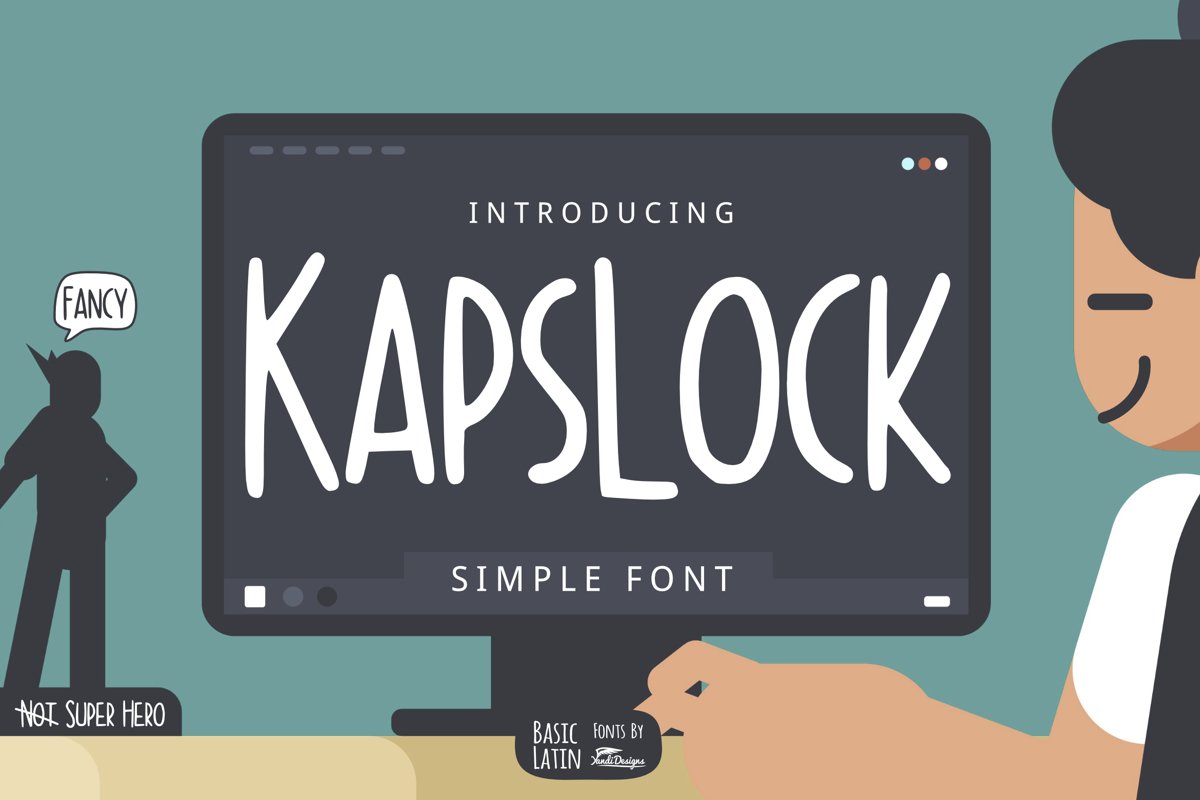
Kapslock Simple Font
Kapslock Font
Kapslock font is simple, cute, multipurpose handwritten font , suitable for many project children book, quotes, logo , heading , title etc.